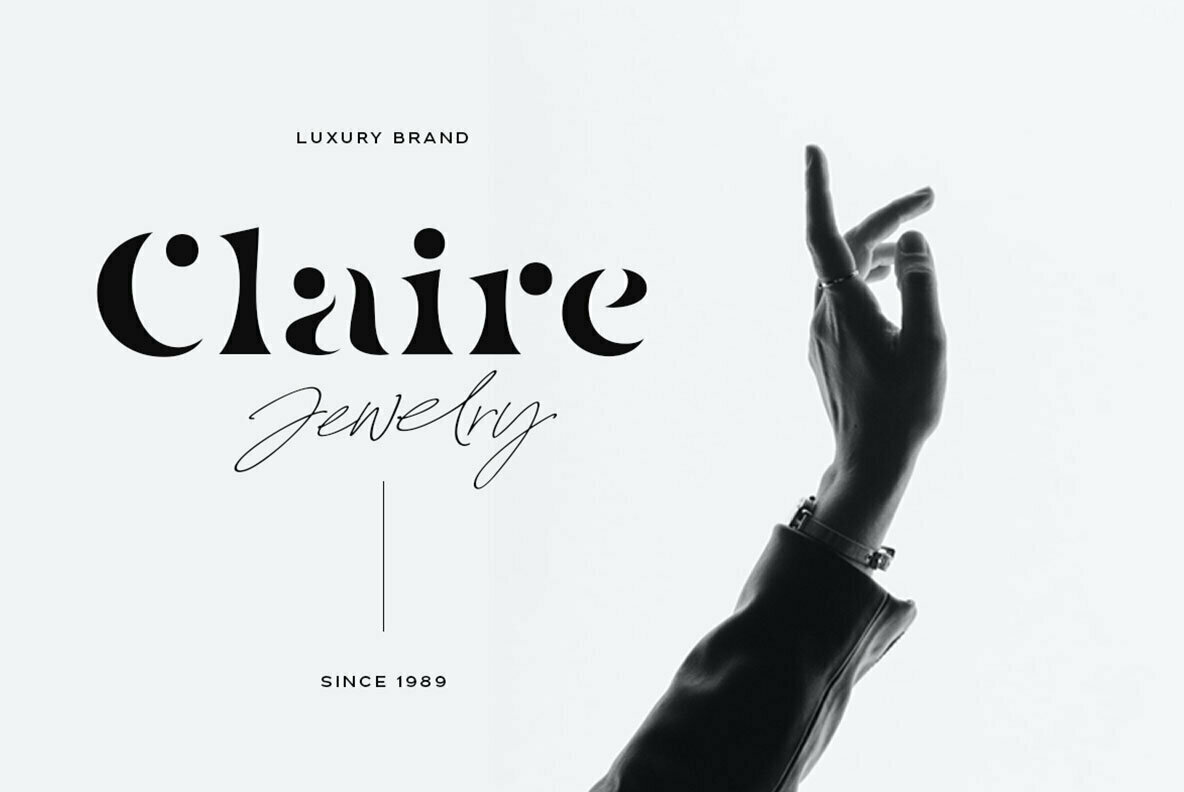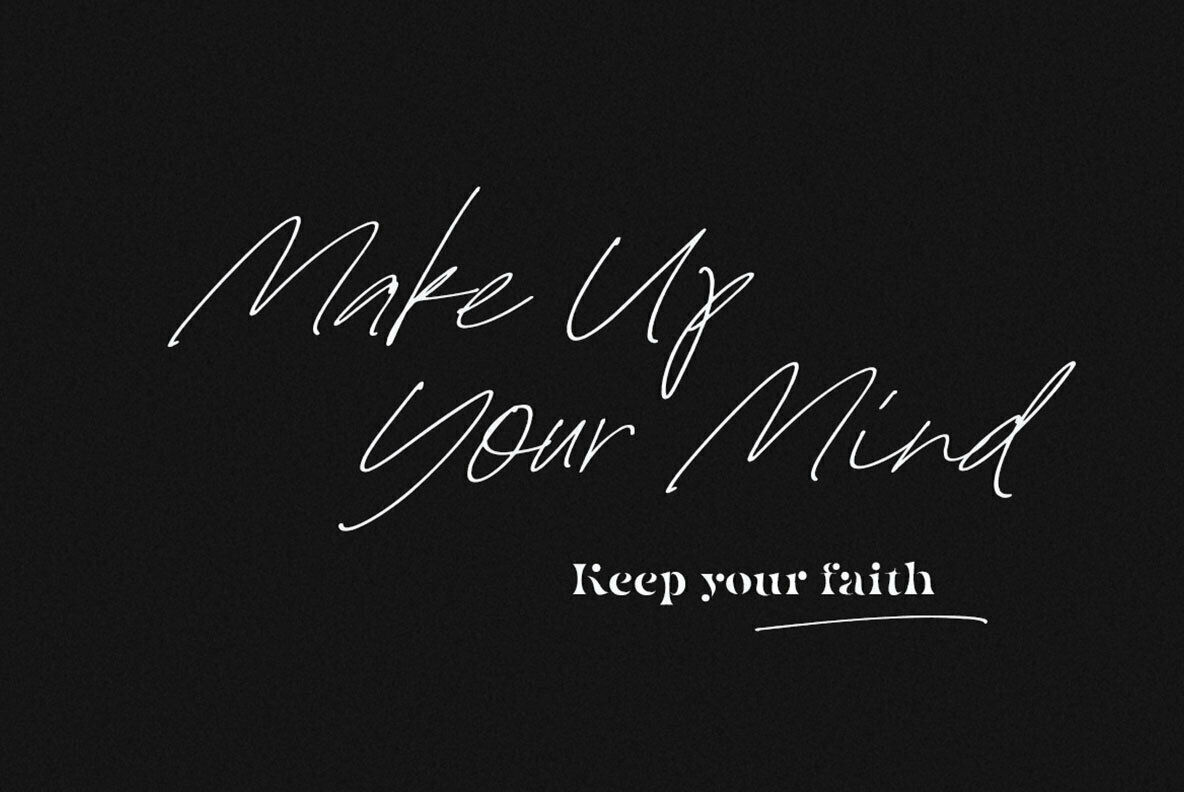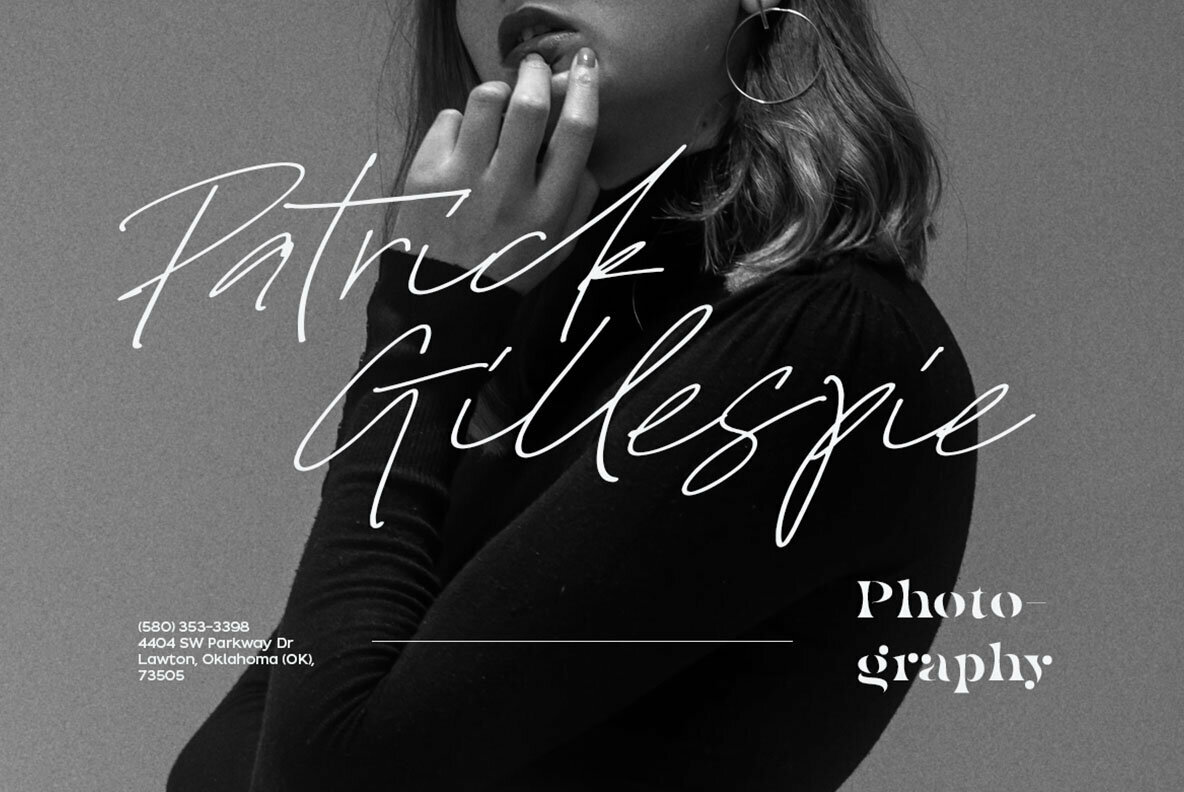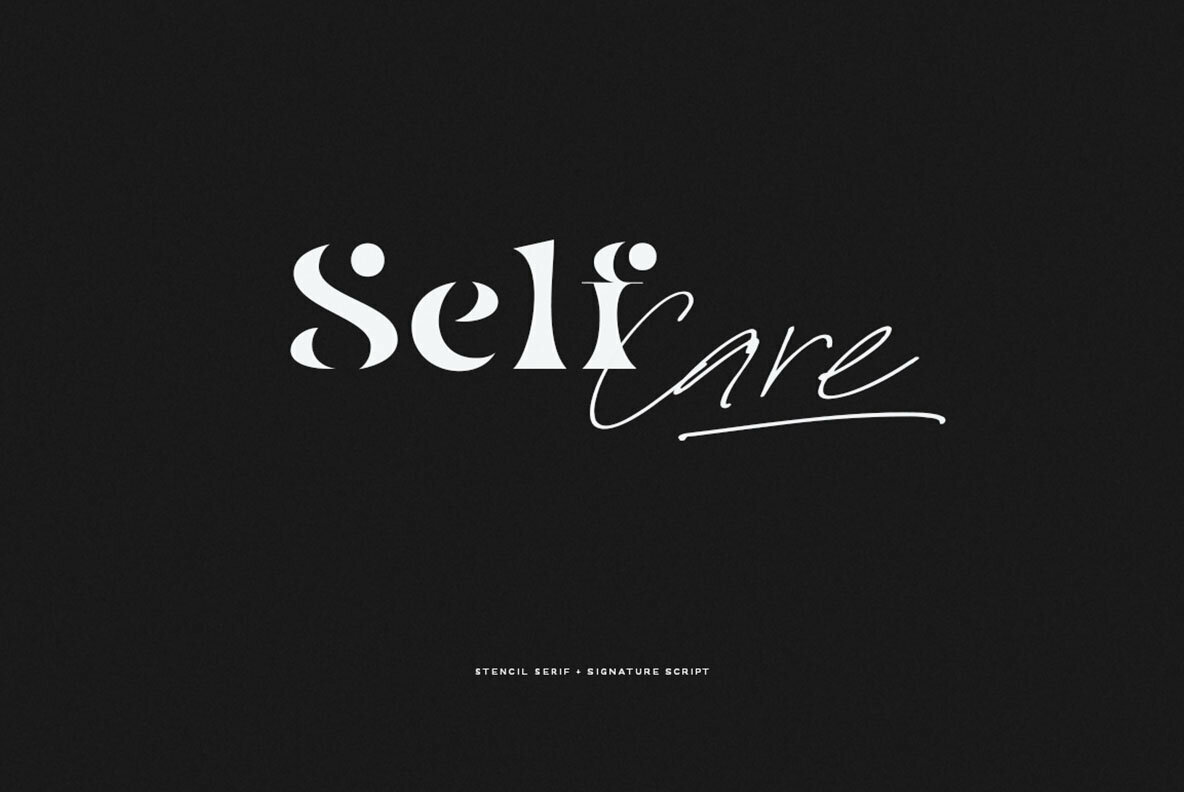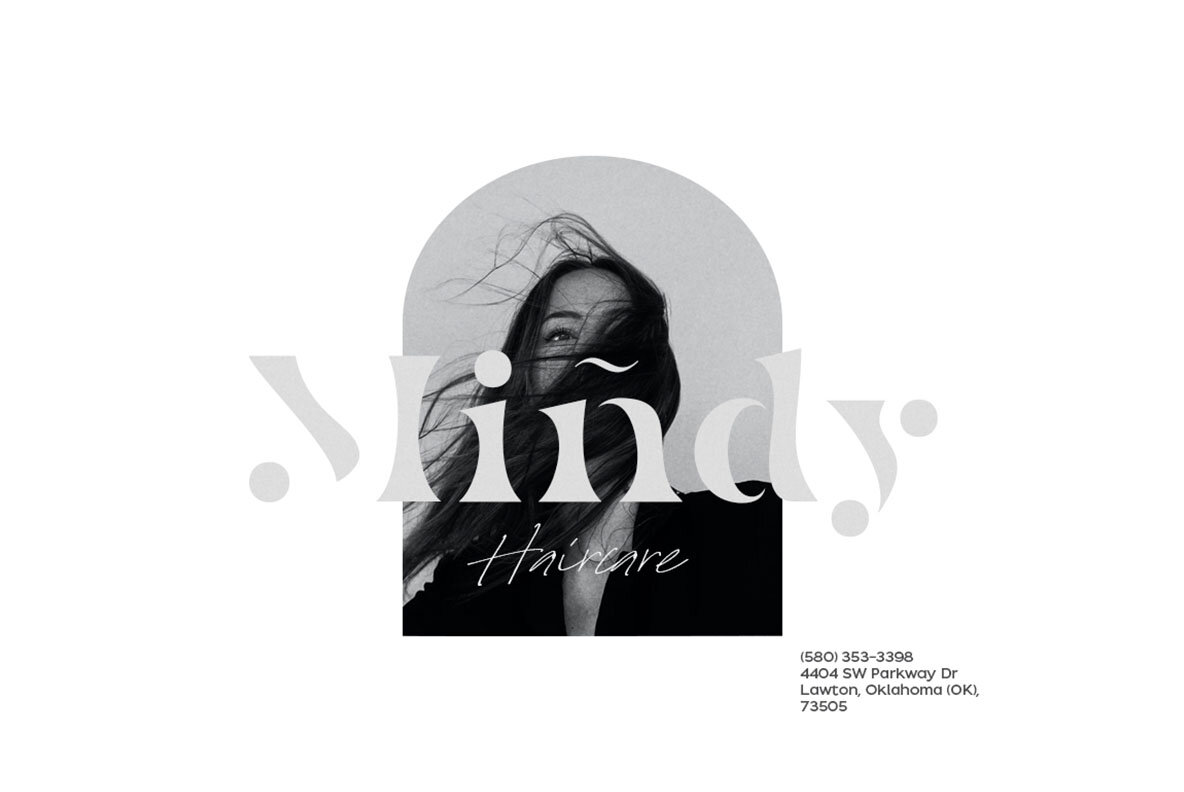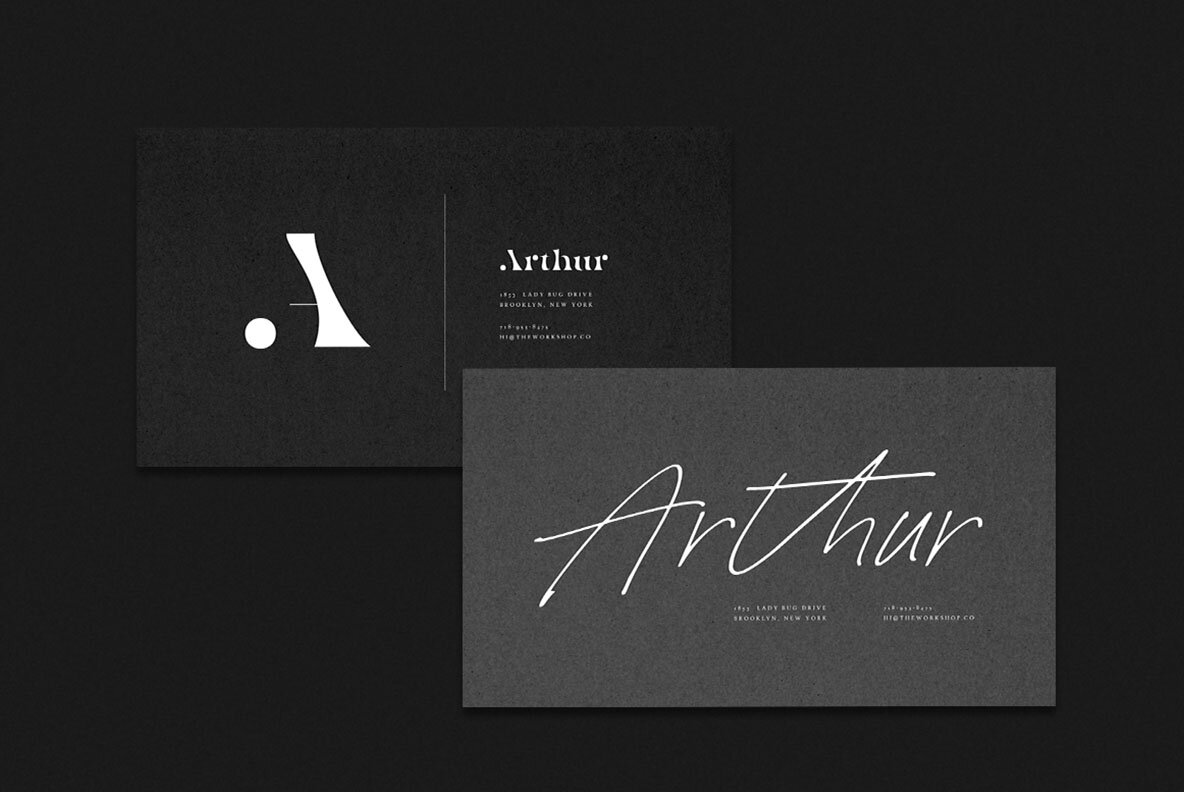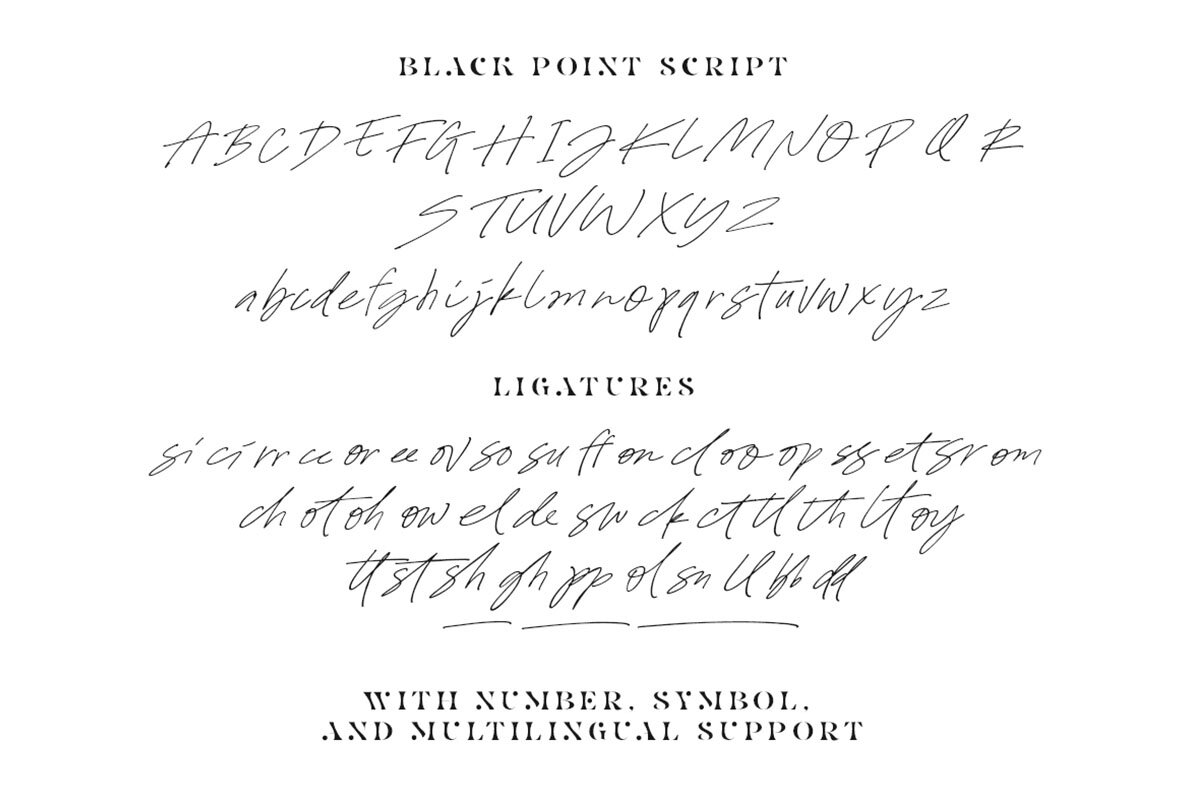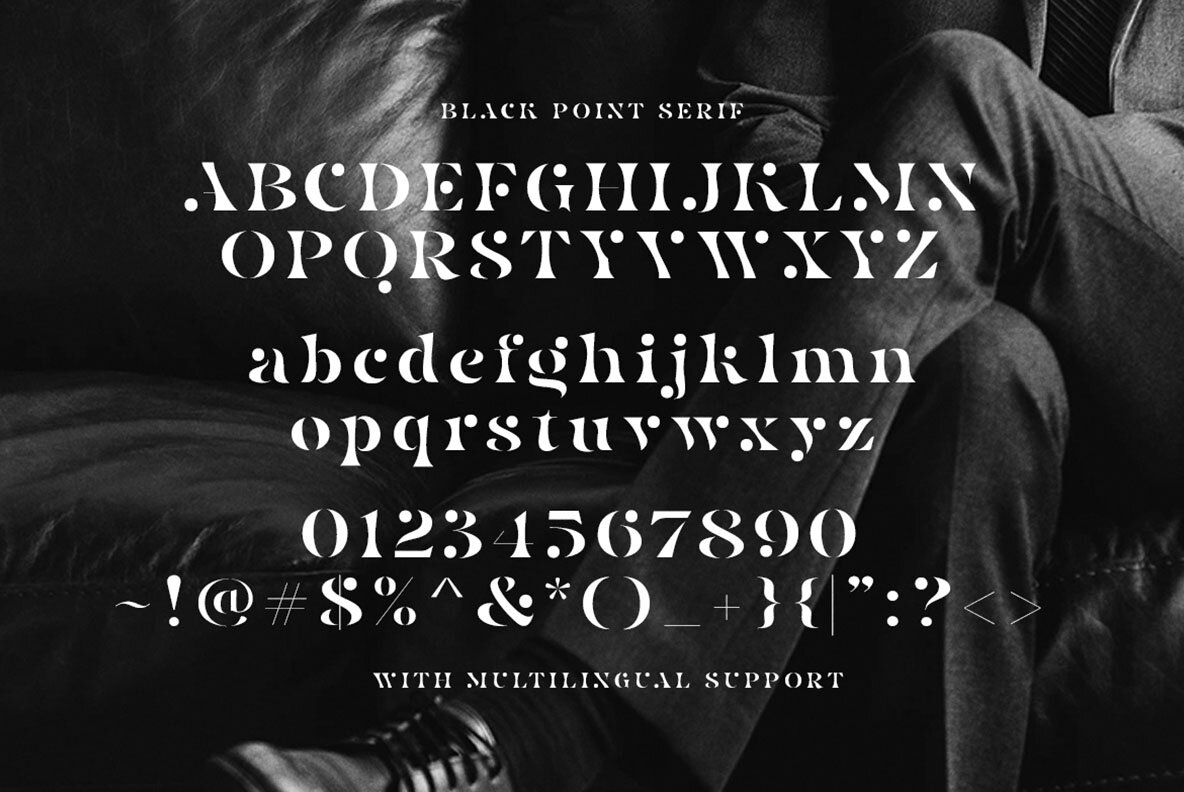
Black Point Font
Black Point Script
Black Point Serif
Black Point by Sarid Ezra presents an elegant font duo that artfully combines modern stencil serif with a signature script. This harmonious pair is designed for versatility, making it an ideal choice for creative professionals seeking a sophisticated touch in their projects. Each font within this duo—one offering a delicate, stylish stencil serif, the other a free-flowing script—complements the other both in form and function. Black Point seamlessly provides a pre-established font pairing, eliminating the need for additional font searches. Its sophisticated design lends itself well to a range of applications including branding, logos, and fashion-oriented design. Whether incorporating it into a magazine layout or a modern branding project, Black Point is poised to enhance any visual narrative.Black Point: A Perfect Union of Stencil Serif and Signature Script